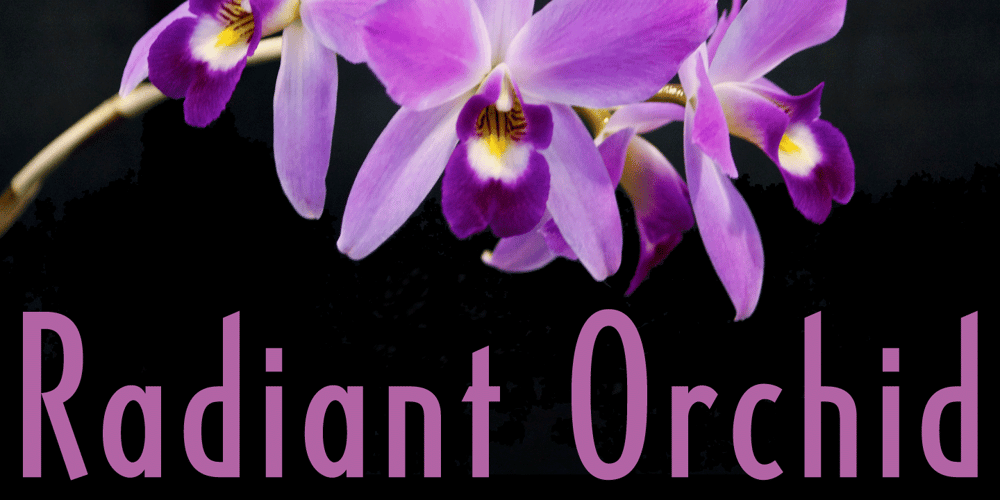
Carlos
Carlos font
Carlos Font Family was designed by Jason Castle and published by CastleType. Carlos contains 3 styles and family package options. Carlos was inspired by a Spanish typeface designed by Carlos Winkow called ‘Elektra’ (c. 1940), available elsewhere as Casablanca. Carlos is an exceptionally graceful, condensed art deco sans serif design that supports all European languages that use the Latin alphabet as well as those that use the Cyrillic alphabet, and includes OpenType features, arbitrary fractions, and a collection of geometrics, dingbats & fleurons.